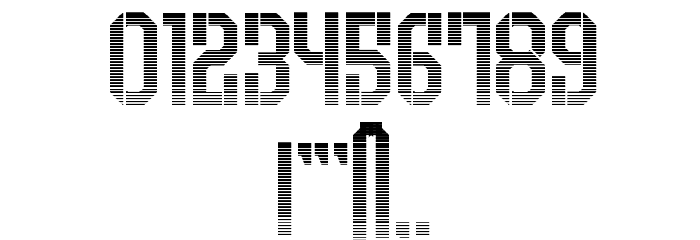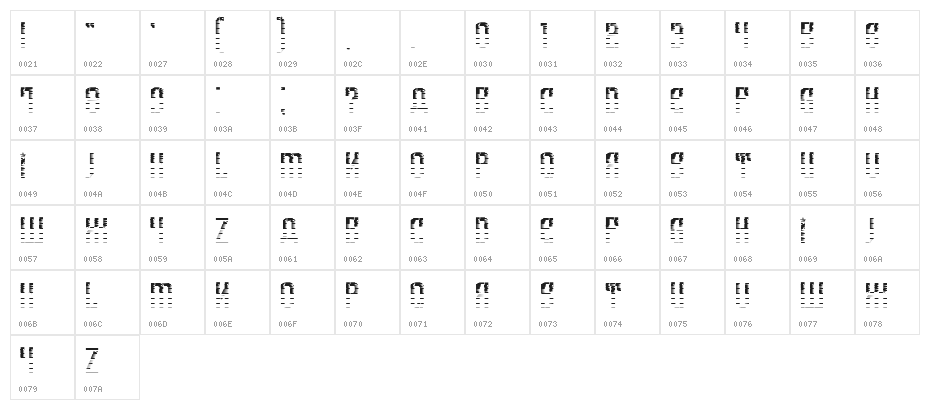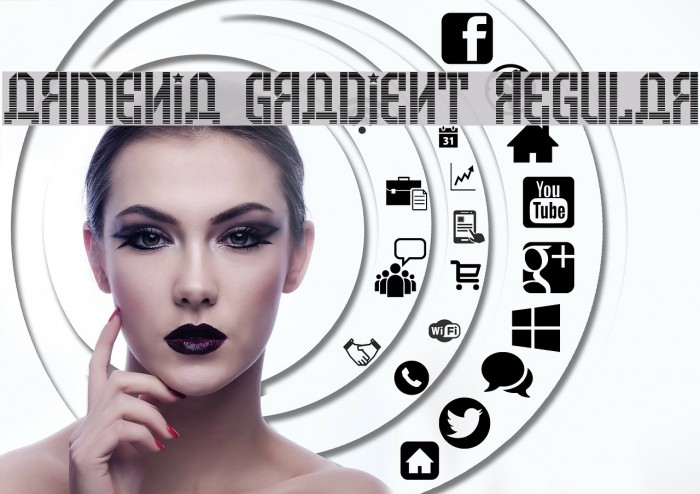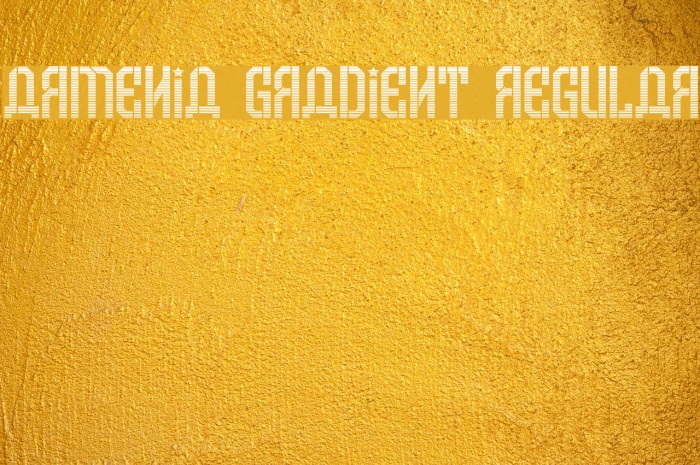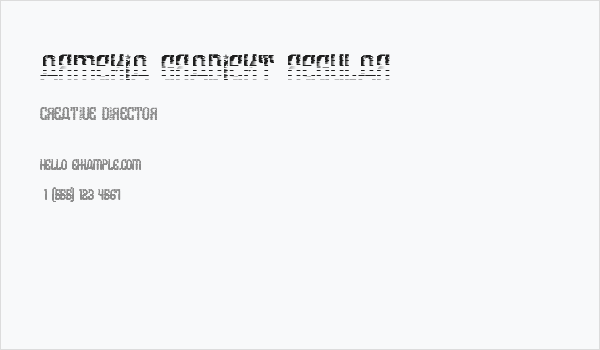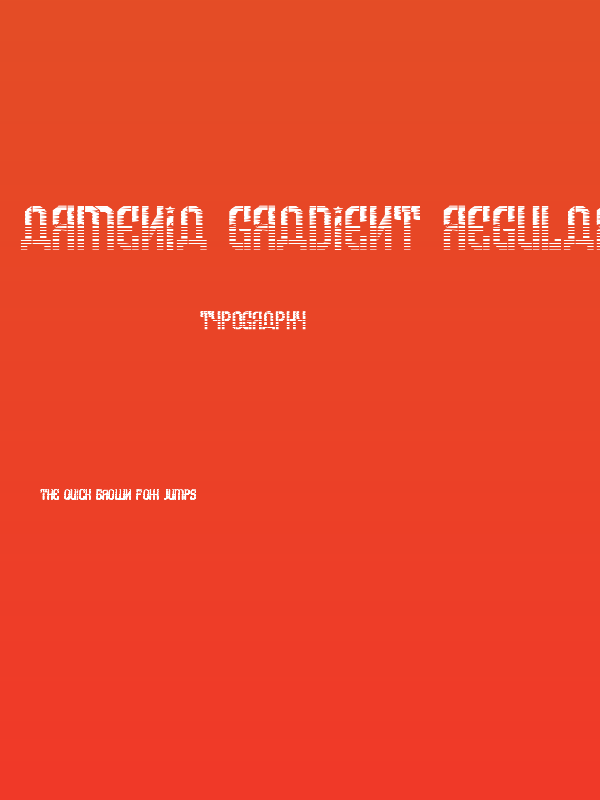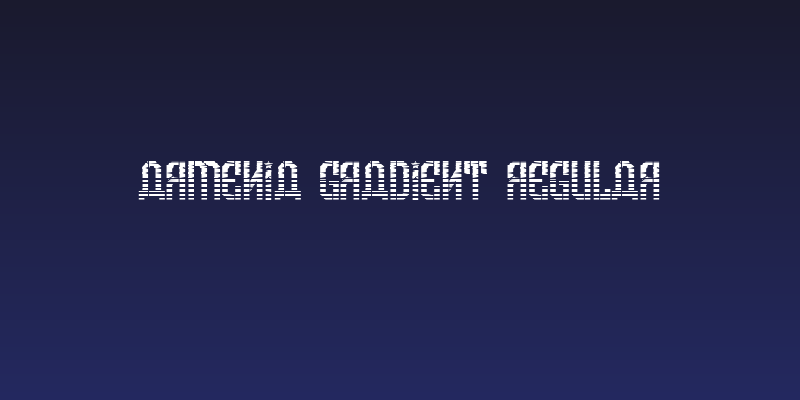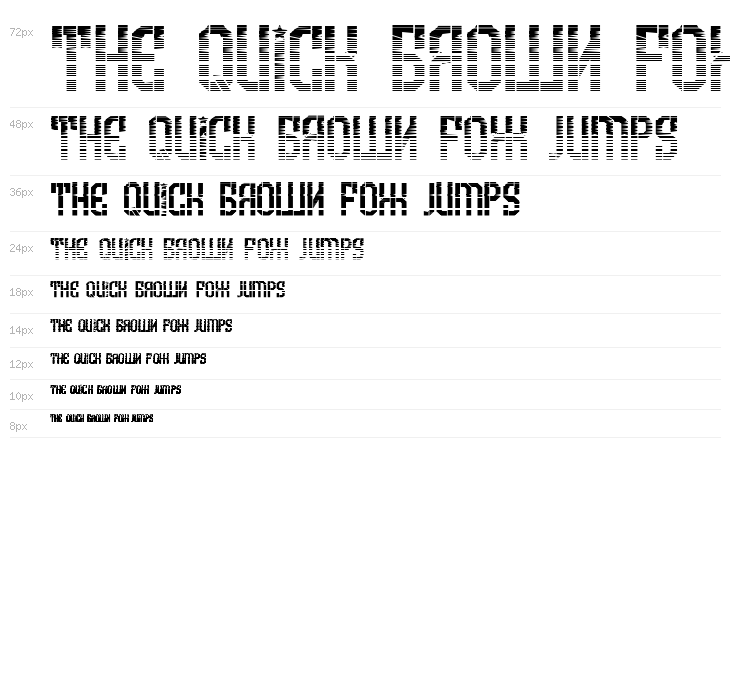
Armenia Gradient Regular Font
Armenia Gradient Regular Description
This font features a unique, modern design characterized by its gradient-like horizontal lines that form each character. The uppercase and lowercase letters, as well as numbers and special characters, are constructed with a series of parallel lines, creating a striped effect that gives the font a dynamic and futuristic appearance. The geometric shapes and sharp angles contribute to its bold and striking look, making it stand out in any design project. The font's style is consistent across all characters, ensuring a cohesive and visually appealing presentation.
| Proposed Projects | Ideal for digital art, modern branding, tech-related projects, and eye-catching headlines. |